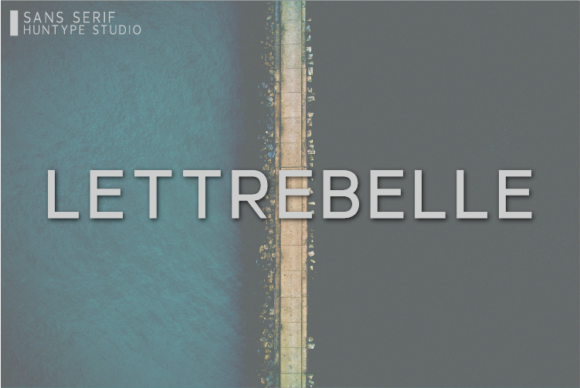
Introducing Lettrebelle Font - The Epitome of Stylish Elegance for Fashion Blogs
In the realm of fashion blogging, where aesthetics reign supreme, the choice of font plays a pivotal role in captivating your audience and leaving a lasting impression. Allow us to introduce Lettrebelle Font, a masterpiece crafted by the renowned Huntype foundry, specifically designed to elevate your fashion blog to new heights of sophistication and style.
With its clean and simple sans serif design, Lettrebelle Font exudes an air of effortless elegance that perfectly complements the dynamic and ever-evolving world of fashion. Each meticulously crafted letterform radiates a touch of minimalism, allowing your content to take center stage while still adding a subtle hint of visual intrigue.
Lettrebelle Font is the perfect font for fashion bloggers who value both style and versatility. Its clean lines and unassuming nature make it the ideal choice for a wide range of applications, from web designs and social media posts to business cards and marketing materials. Whether you're showcasing the latest trends, reviewing must-have fashion items, or sharing your personal style journey, Lettrebelle Font seamlessly adapts to your unique vision, allowing your content to shine.
Embrace the allure of Lettrebelle Font and watch as your fashion blog blossoms into a captivating visual symphony. Its timeless appeal and effortless charm will leave your readers spellbound, eager to delve into your fashion insights and explore the captivating world you create.
Unlock the power of Lettrebelle Font today and embark on a journey of fashion blogging excellence. Let your words dance across the screen with poise and grace, leaving an indelible mark on your audience's minds. Join the ranks of fashionistas who have discovered the transformative power of Lettrebelle Font and elevate your blog to the forefront of style and sophistication.